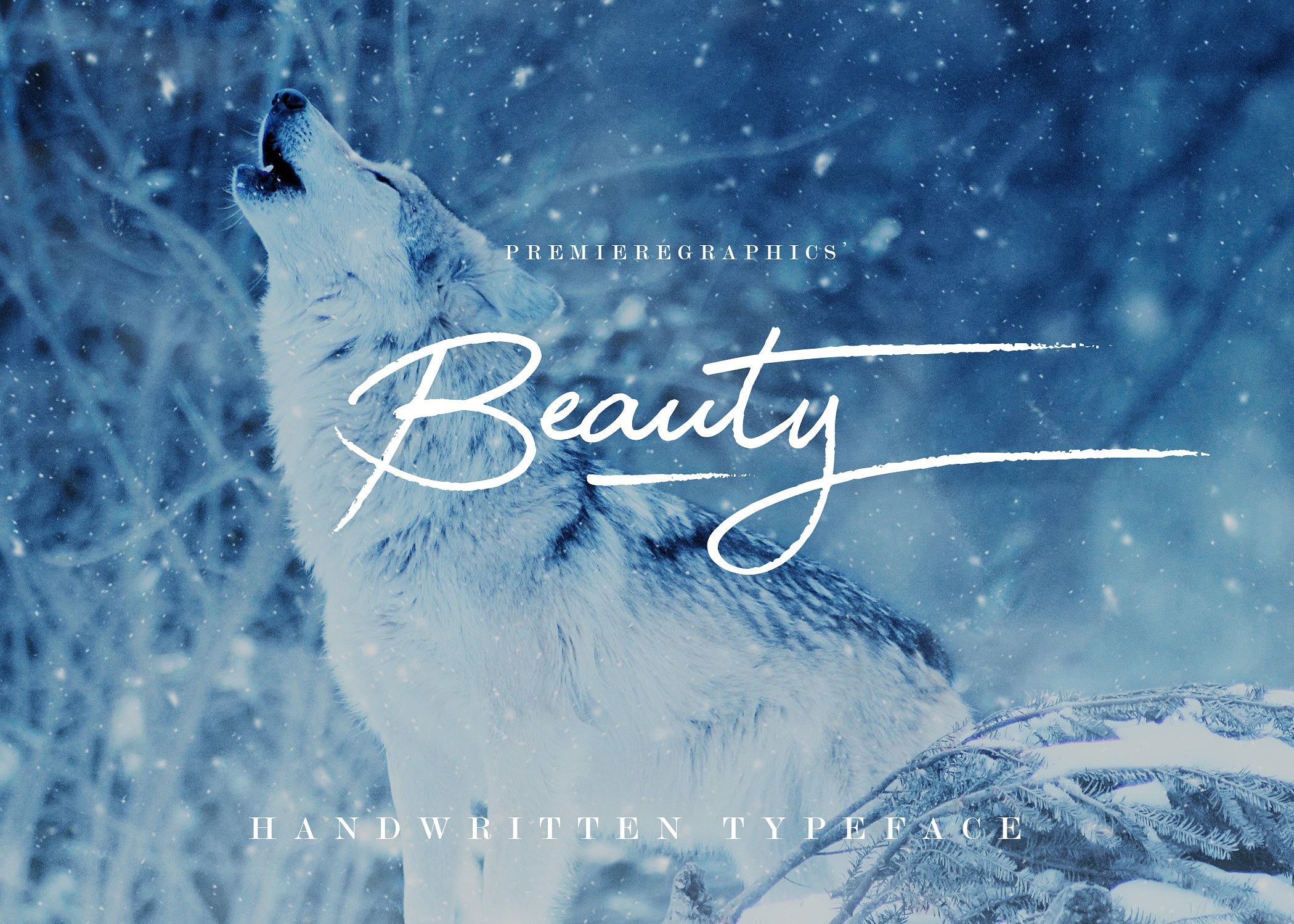
Beauty Script
Beauty Script Font
Introducing, the Beauty font! This font is unique and very pleasant to the eyes. The font can be a sassy complement for a happy project, or a classy typography design on your brand. Beauty font includes swashes extras. This font is designed to be a perfect choice on your next project!